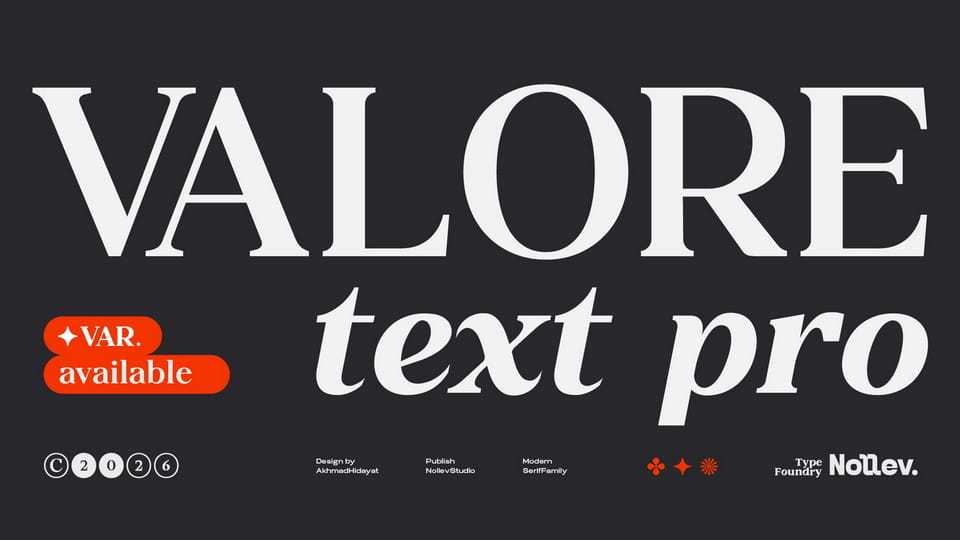
Download Valore Text Pro font, a modern serif typeface crafted for editorial and long-form reading. It blends balanced contrast and refined details to achieve both clarity and elegance.
Designer: Akhmad Hidayat